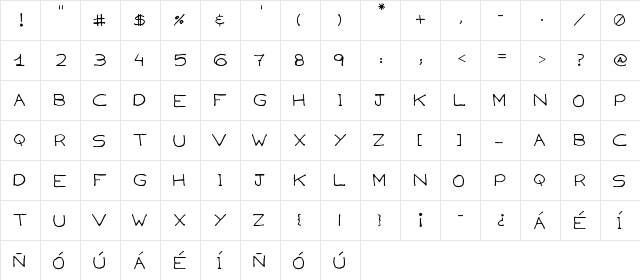
Capsies Regular
Design Context for Capsies Typeface
Capsies takes a measured approach to typography — its balanced proportions and neutral character make it a reliable workhorse for both digital and print work.